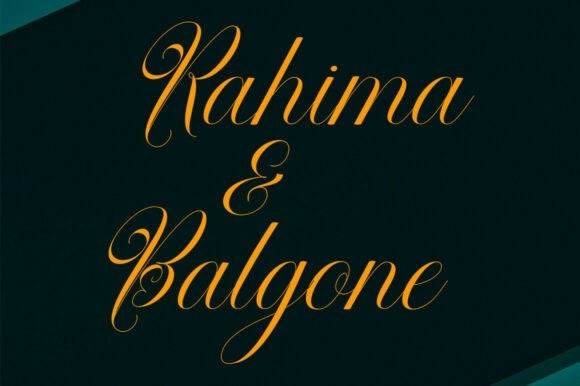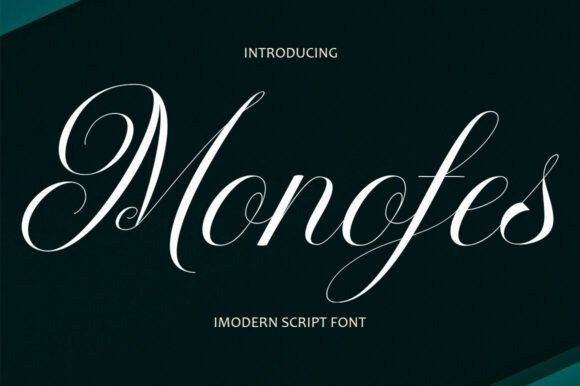
Monofes Font
Monofes Font is a new modern script calligraphy font with a stylish personality. Trendy and feminine, Monofes looks lovely on wedding invitations, thank you cards, quotes, greeting cards, logos, business cards, and more. Perfect for using in ink or watercolour.